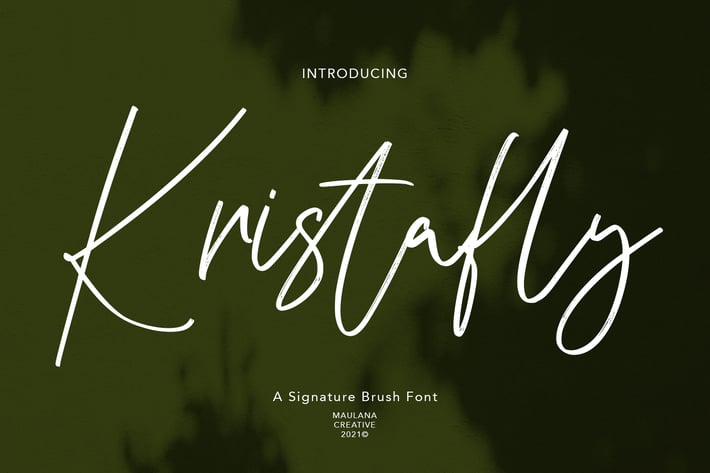
Kristafly Signature Brush Font
Kristafly is a brush script font With rough brush stroke and fun character. It has Opentype features of rich ligatures character, To give you an extra creative work. Kristafly brush script font support multilingual more than 100+ language. This font is good for logo design, Social media, Movie Titles, Books Titles, a short text even a long text letter and good for your secondary text font with sans or serif. Make a stunning work with Kristafly brush script font.